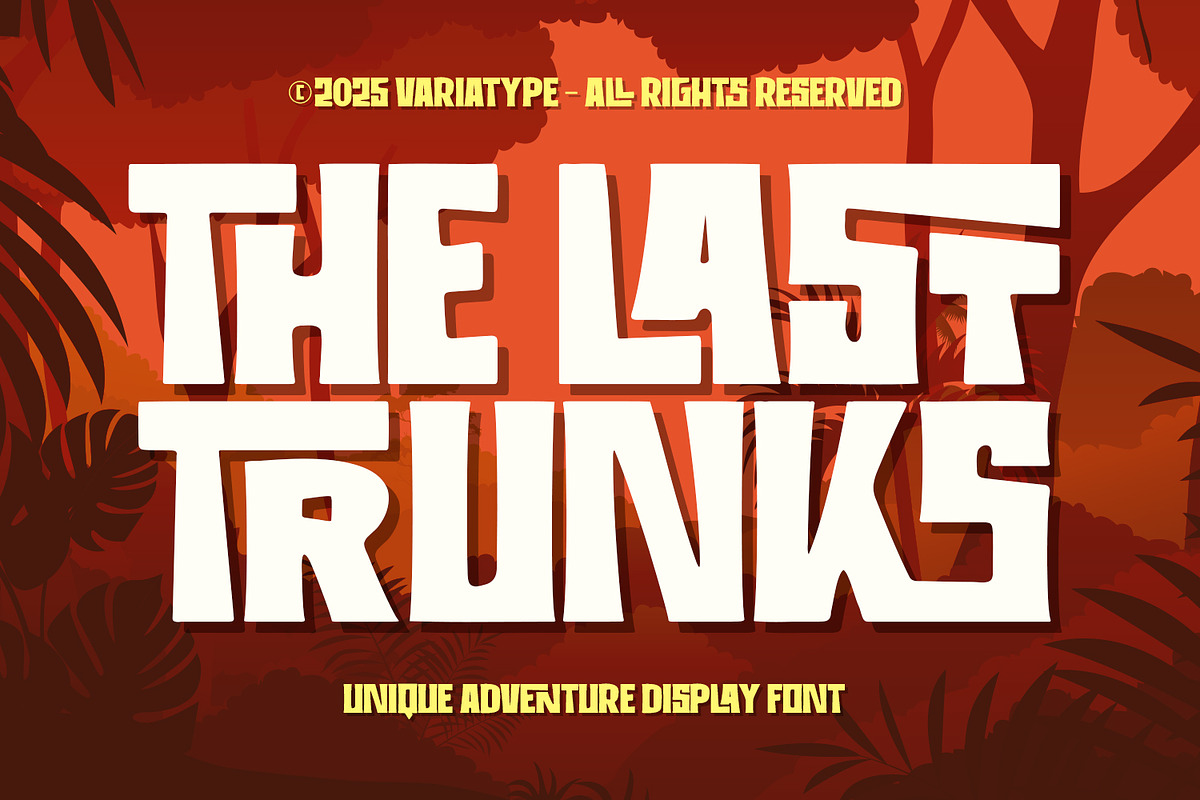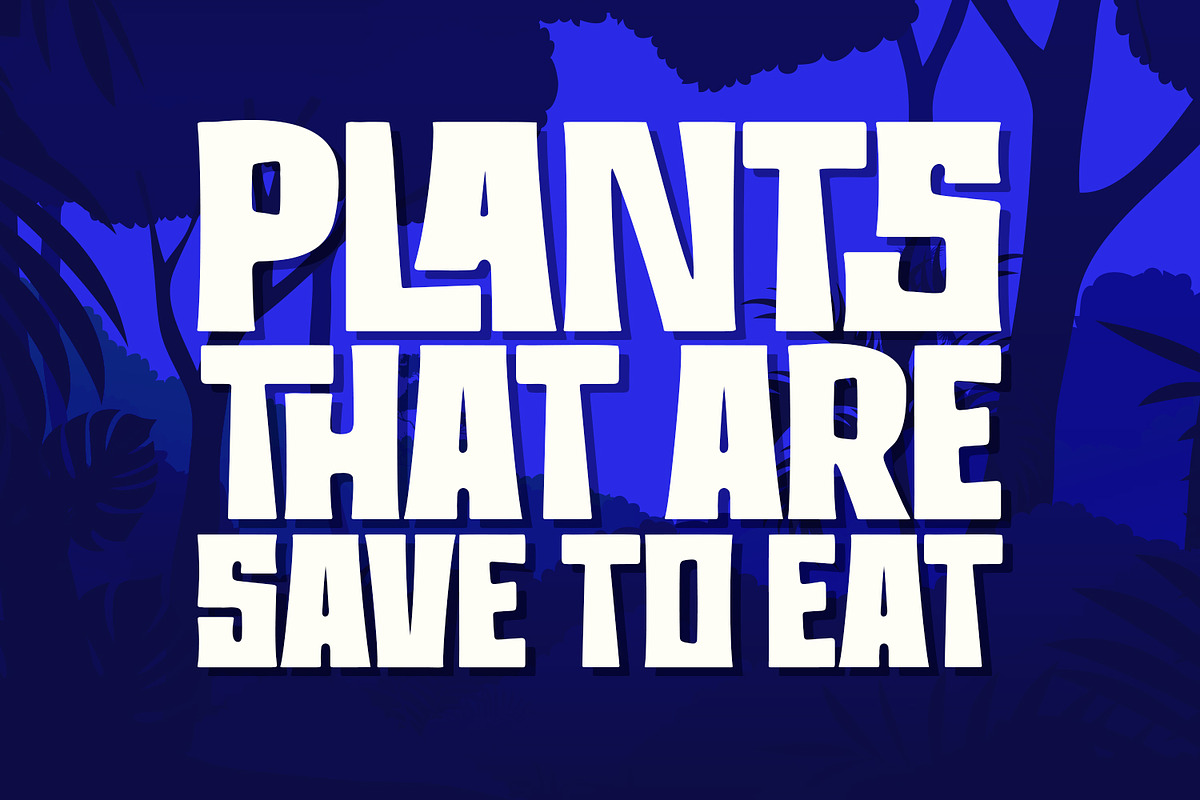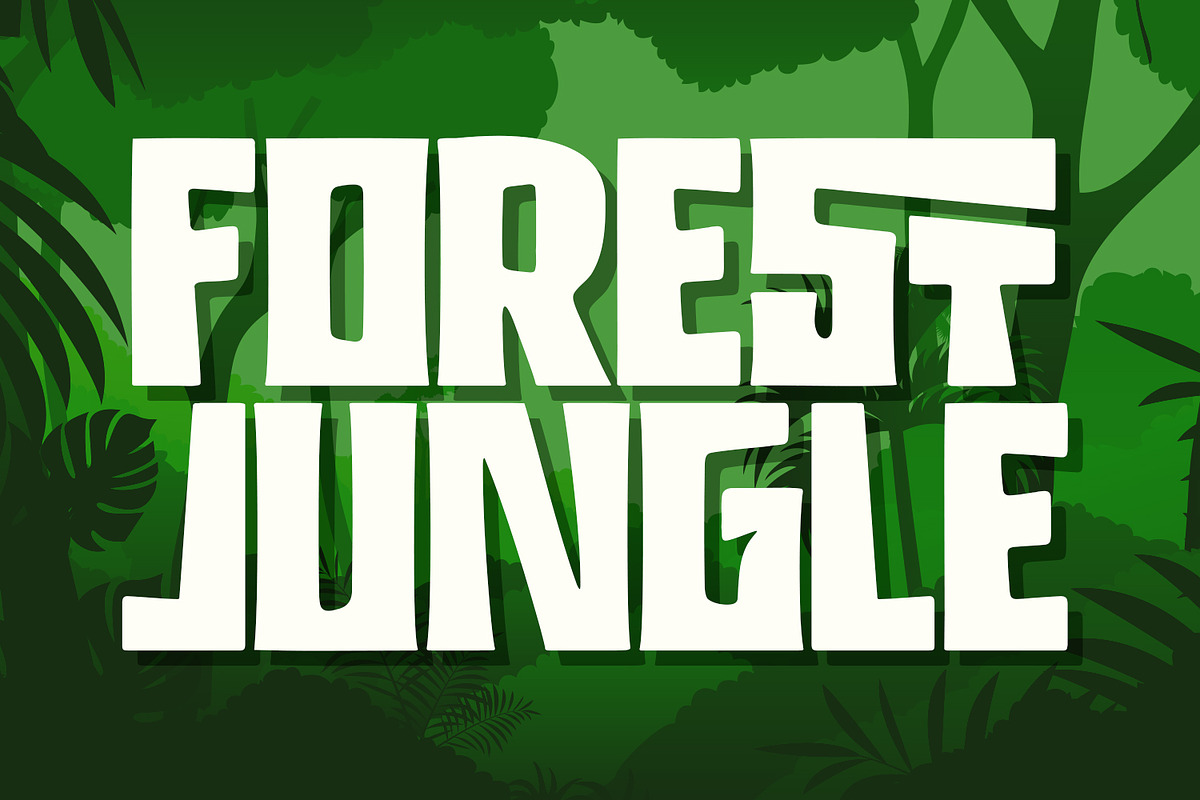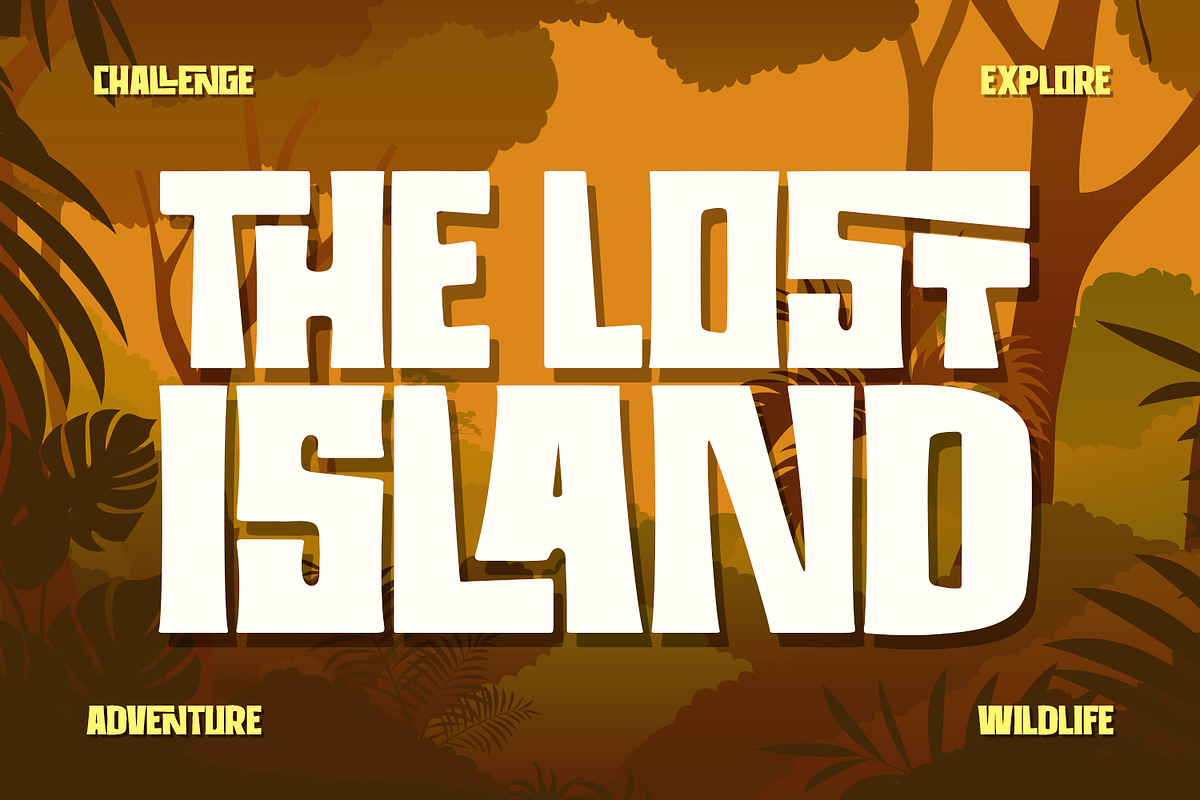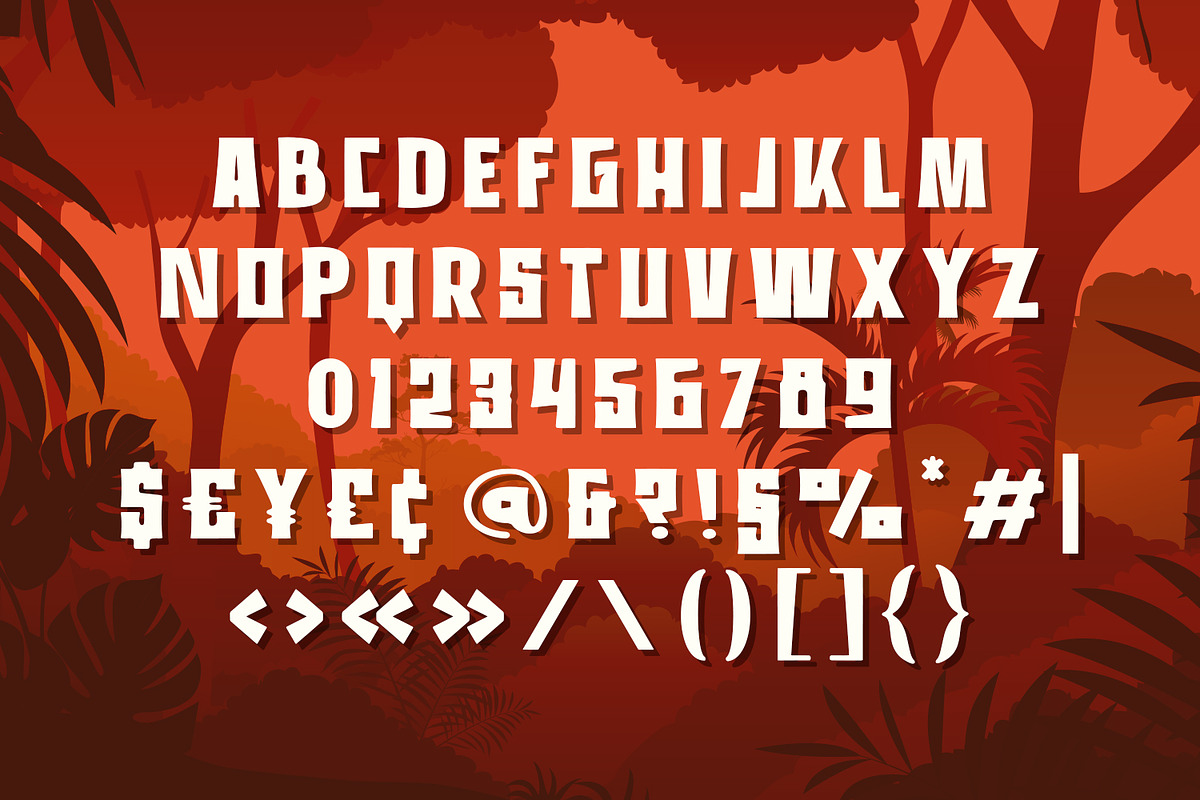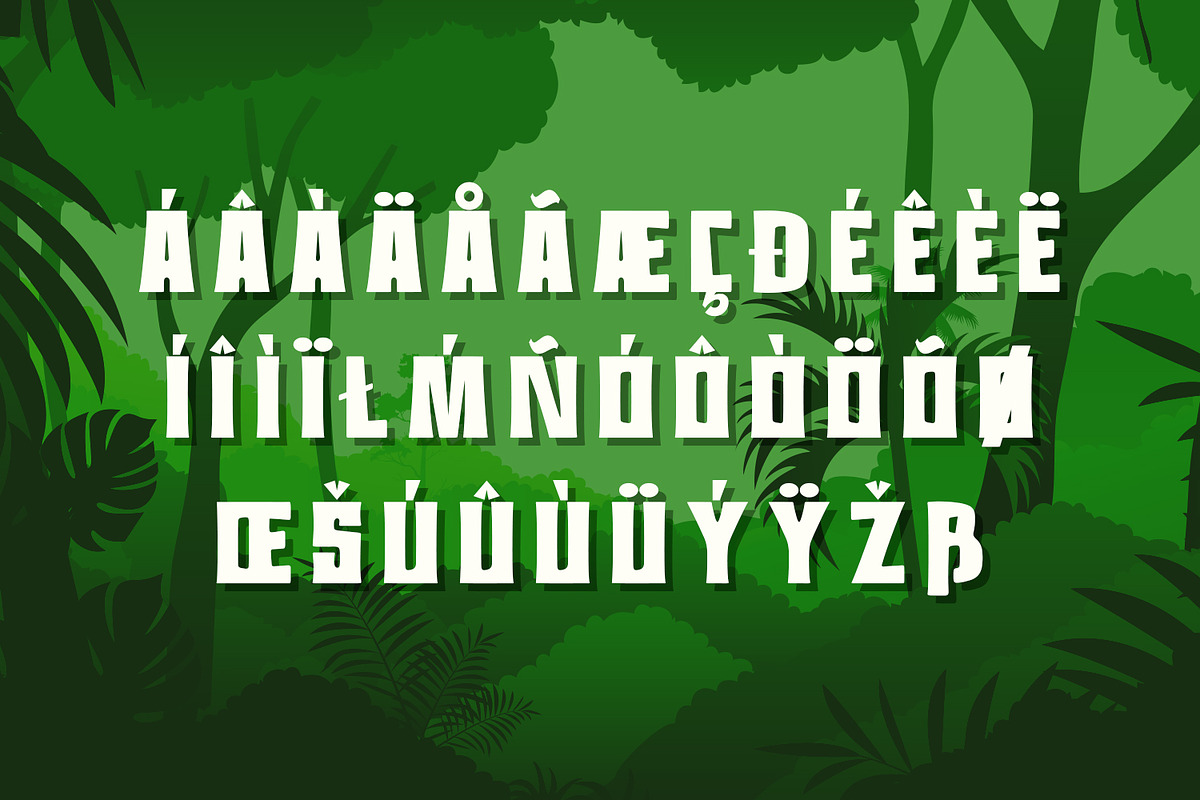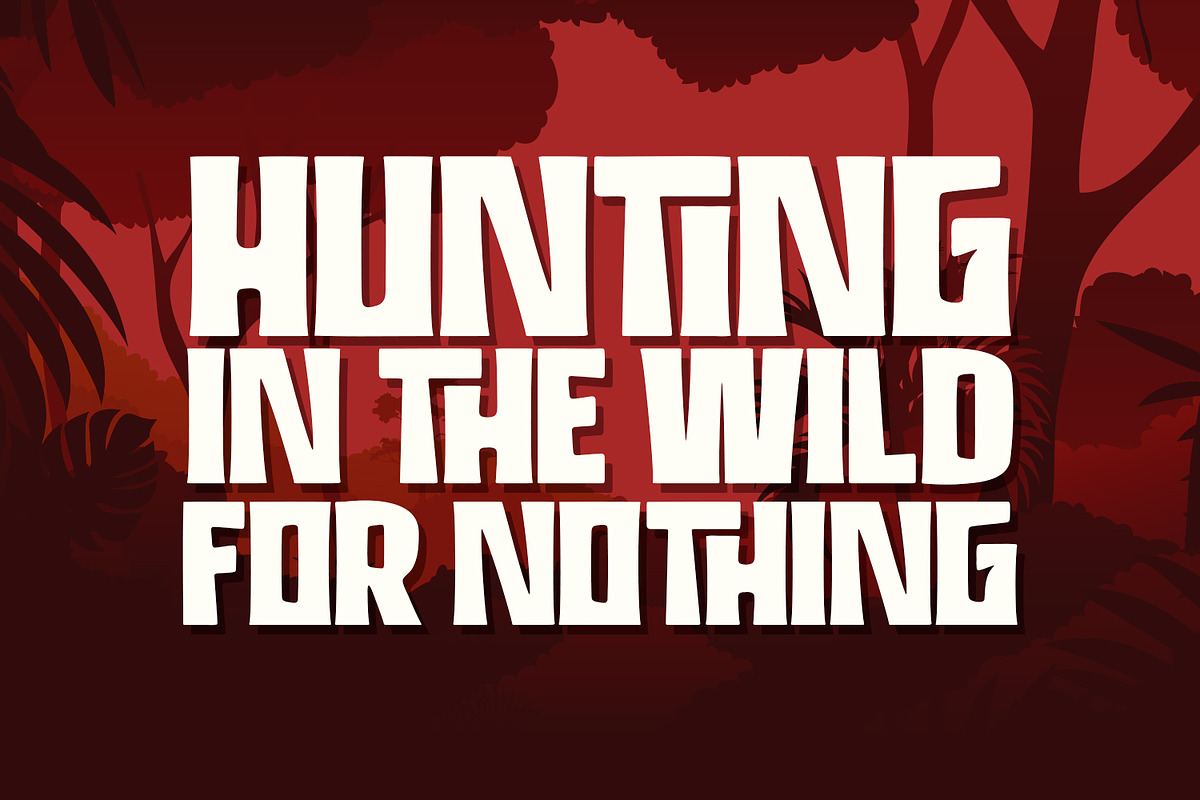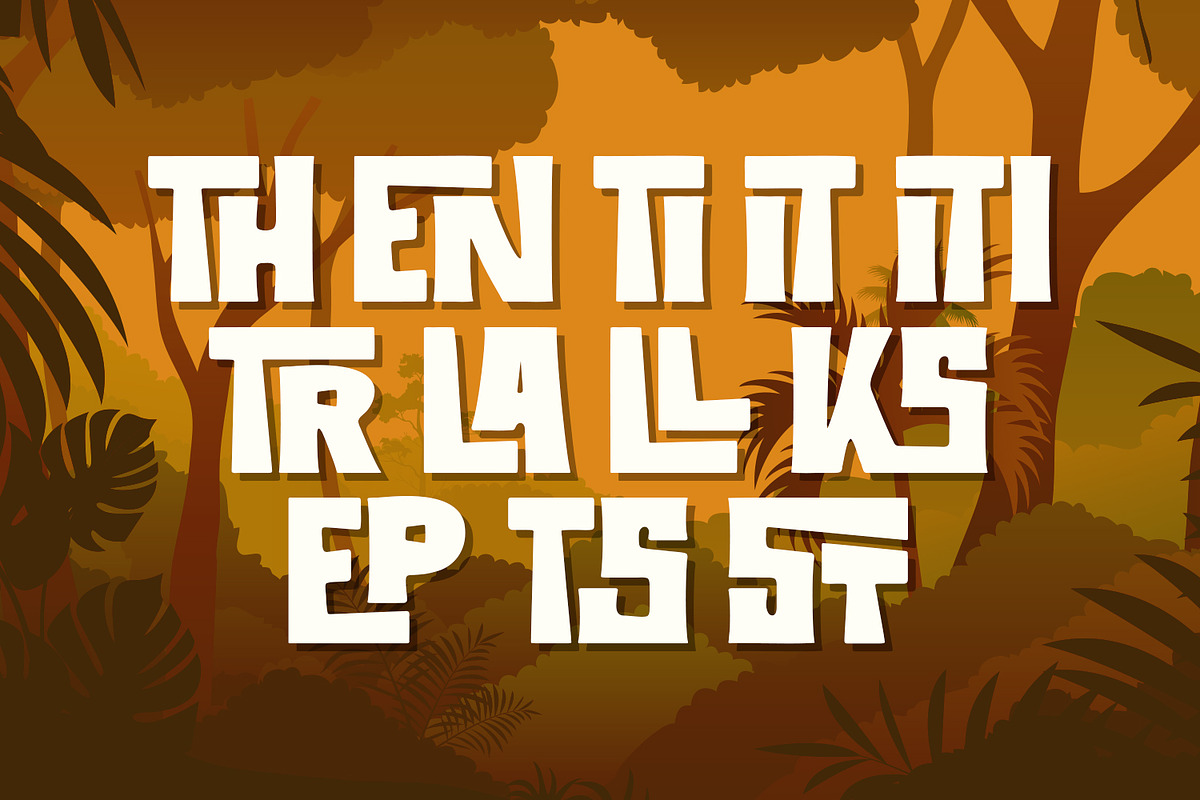
The Last Trunks – Adventure Font
Embark on a creative expedition with The Last Trunks, a bold and playful display font designed to capture the spirited essence of the wild. With its sturdy, organic strokes and adventurous feel, this unique typeface is the perfect companion for children’s book covers, zoo branding, game titles, camping posters, and outdoor-themed merchandise that needs to stand out. It’s fun yet solid character shapes ensure excellent readability while adding a touch of natural excitement to your visual storytelling. Elevate your design portfolio with a font that speaks the language of exploration. Download The Last Trunks today and let your projects roar with confidence.
Additional Accents
67 Languages
Kerning